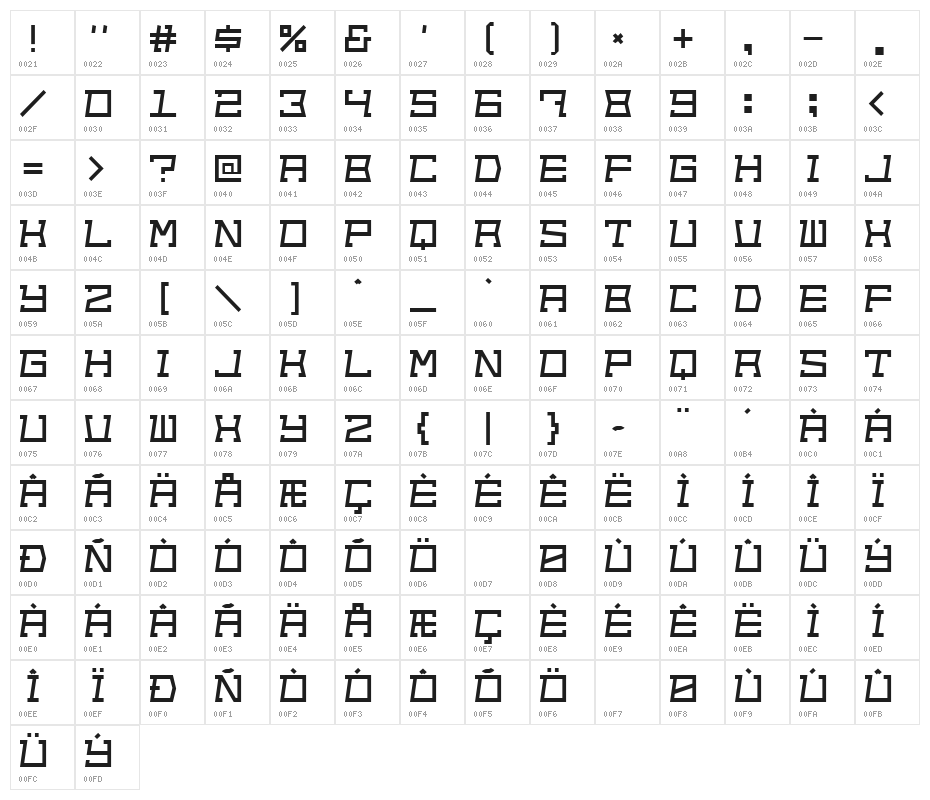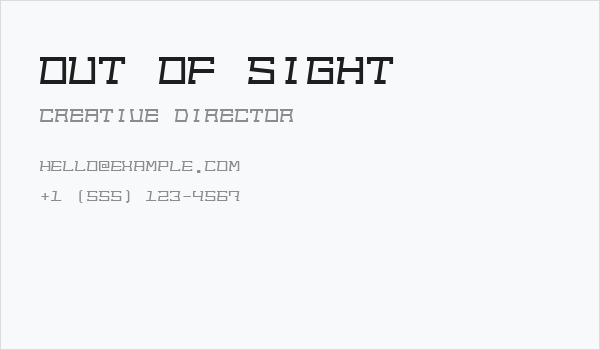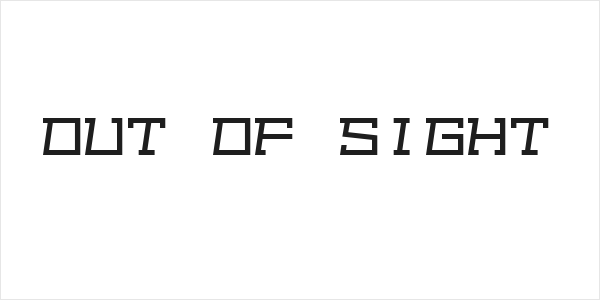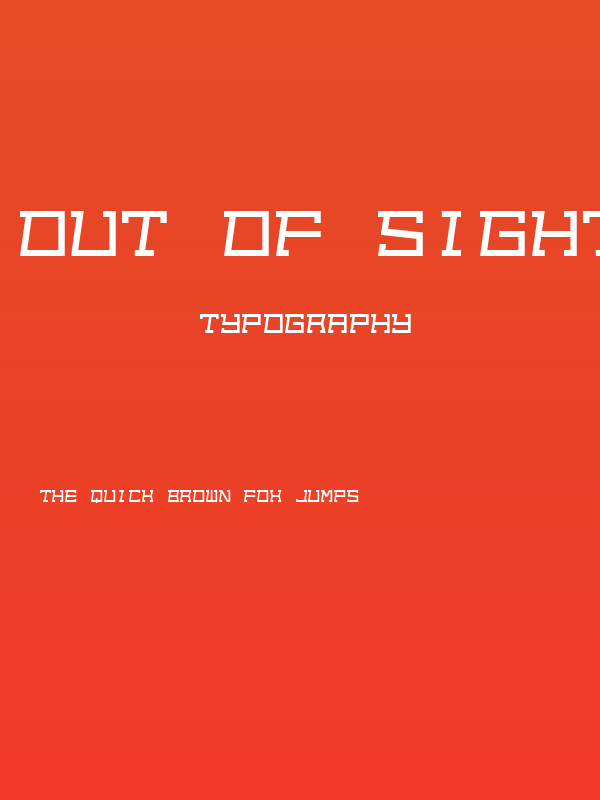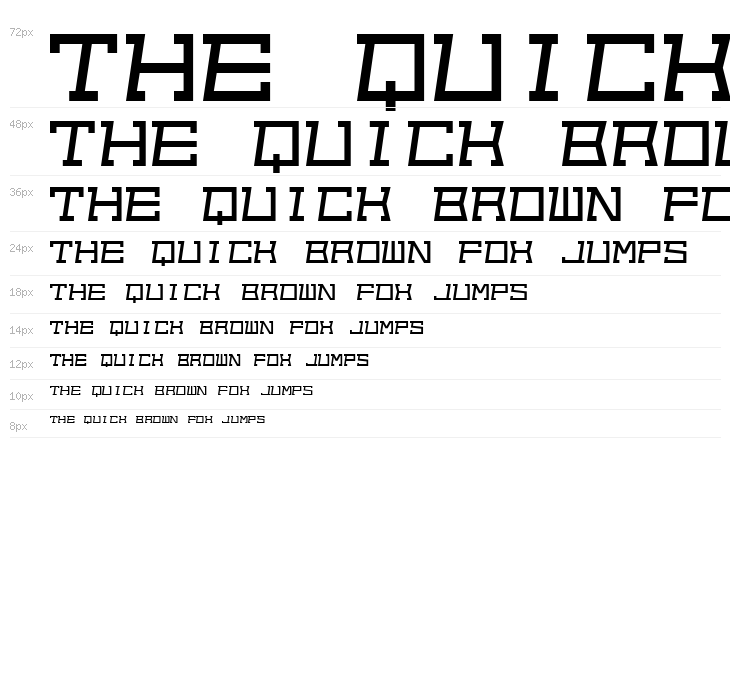
Out of sight Font
Out of sight Description
This font features a bold, angular design with a futuristic and mechanical aesthetic. The characters are constructed with sharp edges and straight lines, giving them a geometric appearance. The uppercase and lowercase letters maintain a consistent style, with the uppercase being slightly more pronounced. The numerals and special characters follow the same design principles, ensuring uniformity across all glyphs. The font's unique style makes it stand out, suitable for projects that require a modern and edgy look.
| Proposed Projects | Ideal for technology branding, sci-fi posters, video game titles, and modern graphic design projects. |